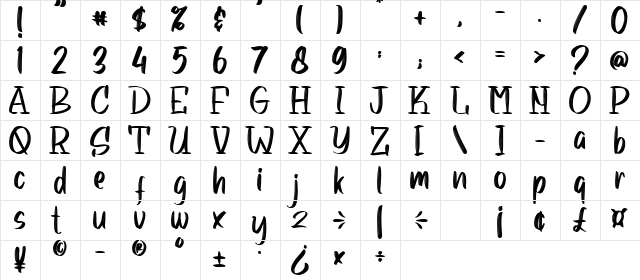
Ceria Regular
| Designer | Omotu Studio 2020 |
Design Context for Ceria Typeface
Ceria is a composed and adaptable typeface that performs quietly and consistently across a wide range of design contexts.